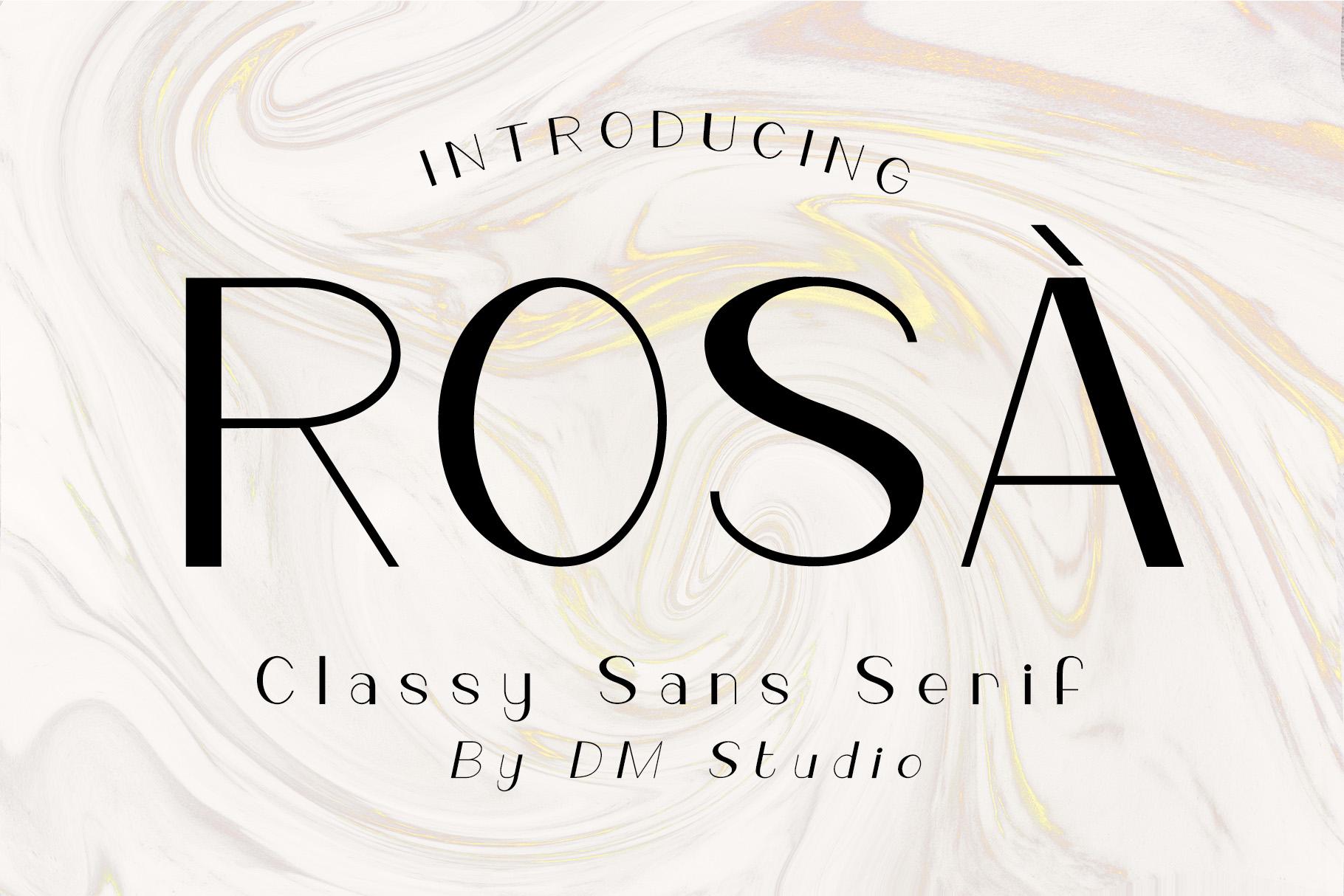
Rosa is a beautifully light and delicate sans serif font with a modern feel. This unique font will add a luxurious touch to a big variety of design projects!